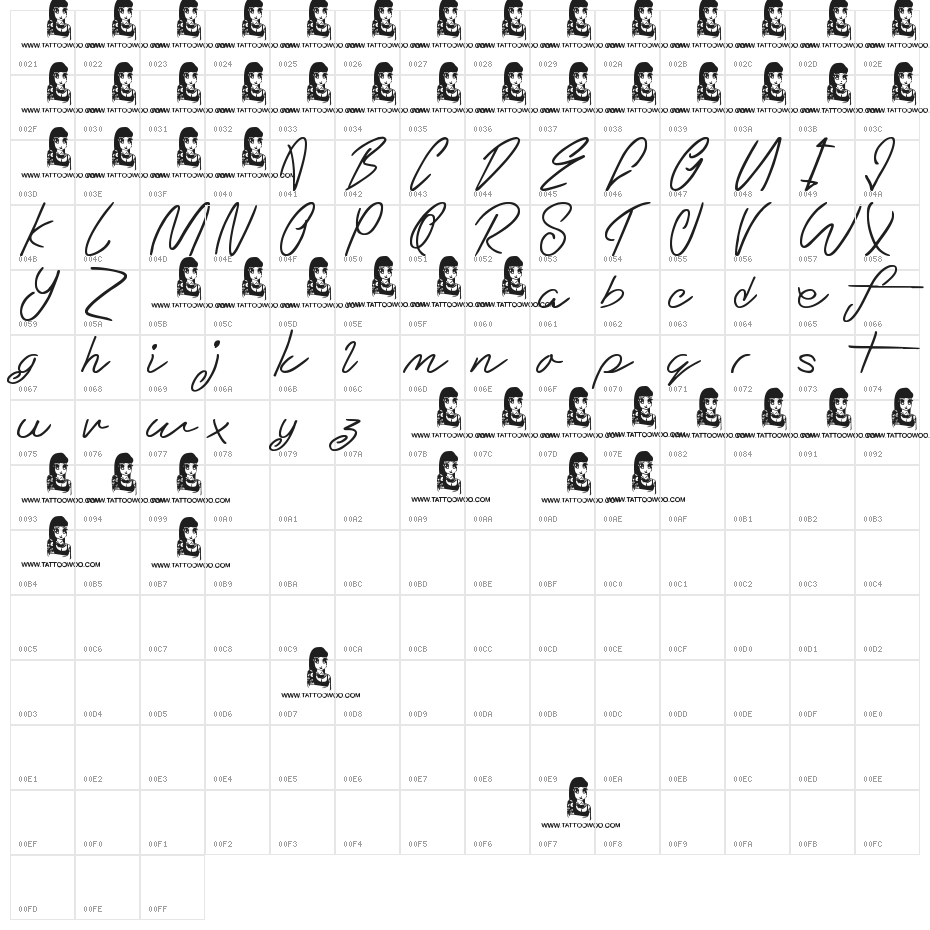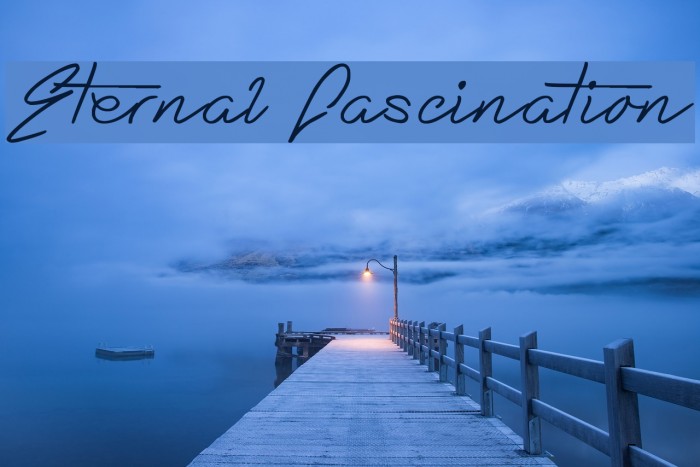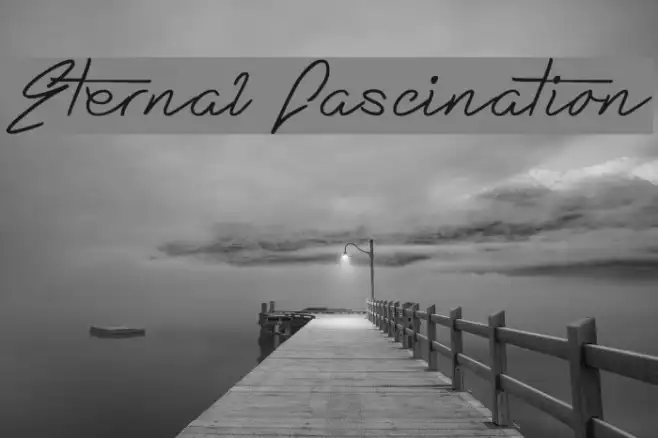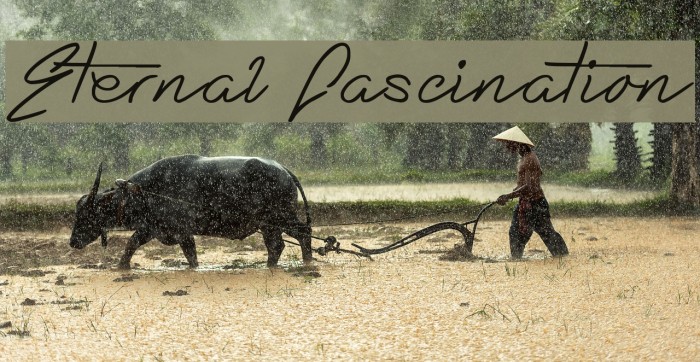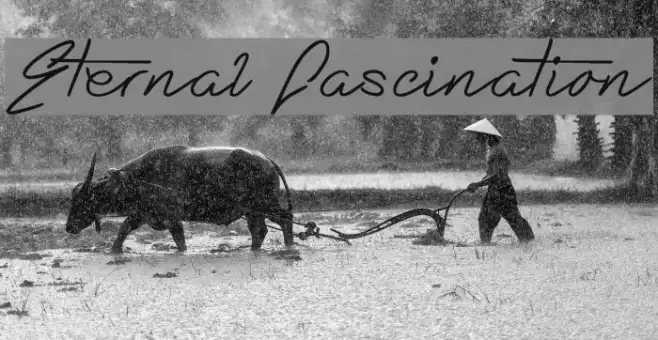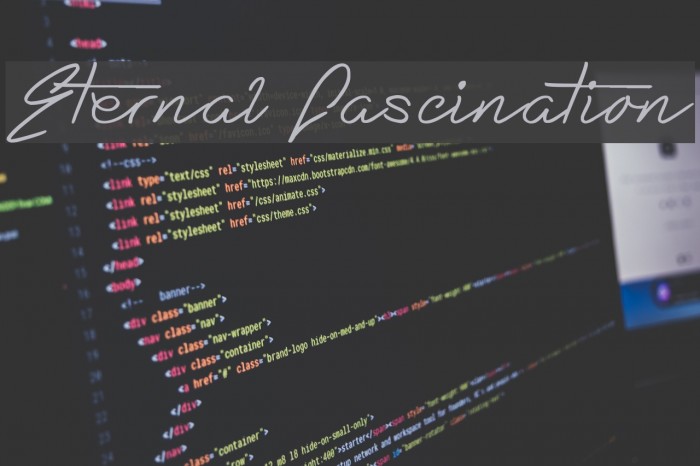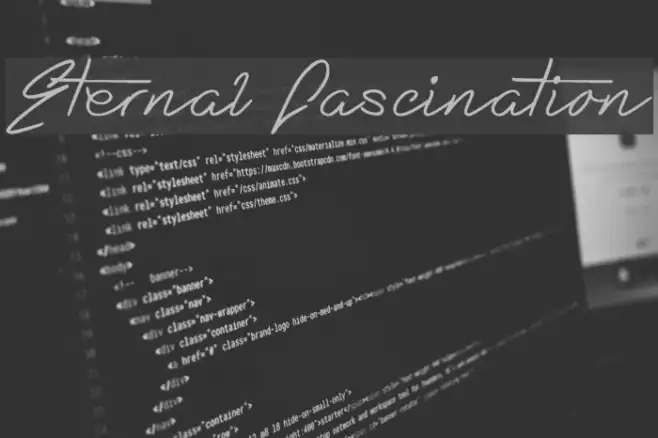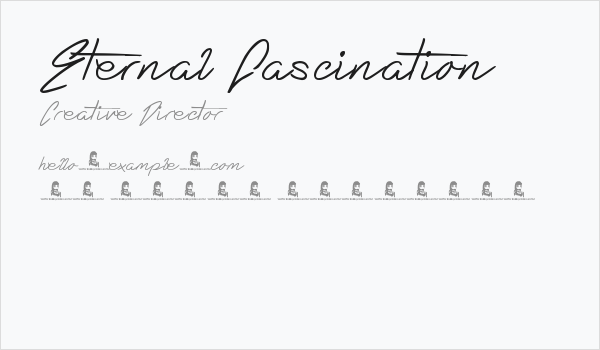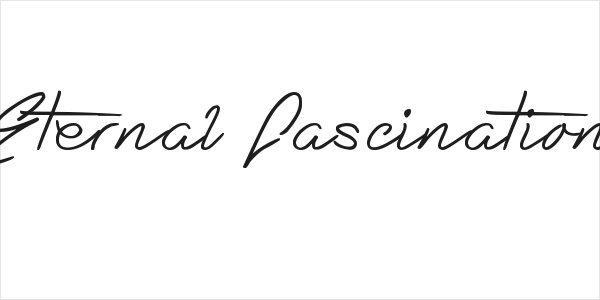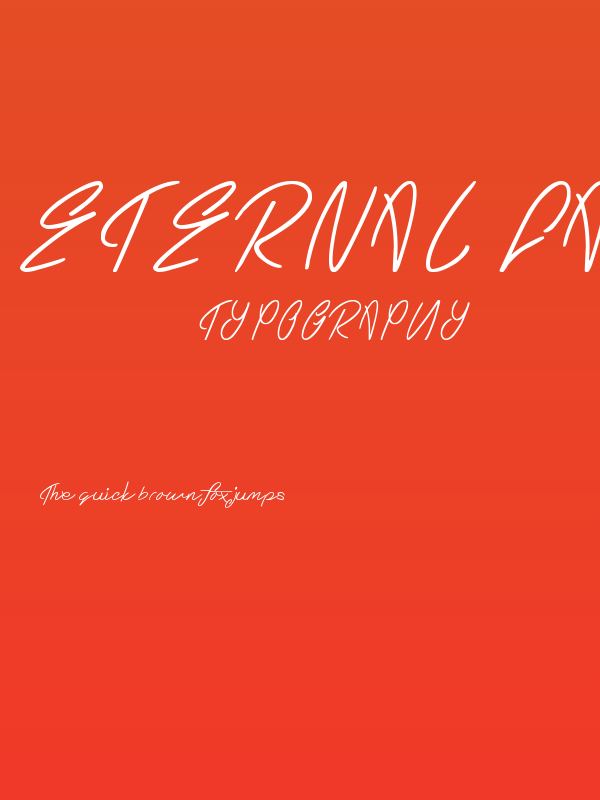
Eternal Fascination Font
Eternal Fascination Description
This font exudes a sense of elegance and fluidity, characterized by its cursive, handwritten style. The letters are connected, creating a seamless flow that mimics natural handwriting. The strokes are smooth and consistent, with a slight slant that adds to its graceful appearance. The uppercase letters maintain a distinct presence, while the lowercase letters are more understated, yet equally refined. This font is ideal for projects that require a personal touch or a sophisticated aesthetic.
| Use Case | Logos, Invitations, Personal Correspondence |
| Proposed Projects | Ideal for wedding invitations, personal letters, branding for luxury products, and artistic projects that require a touch of elegance. |